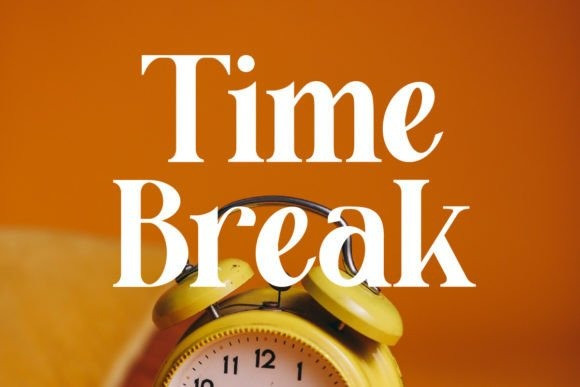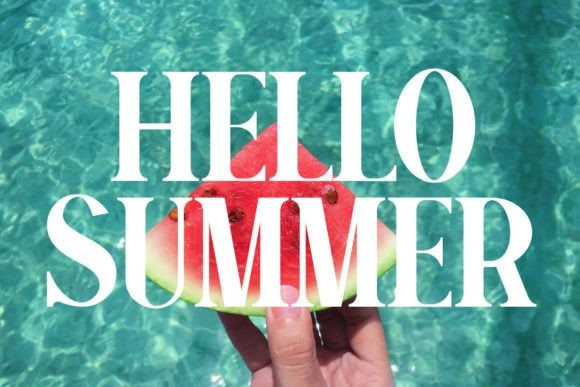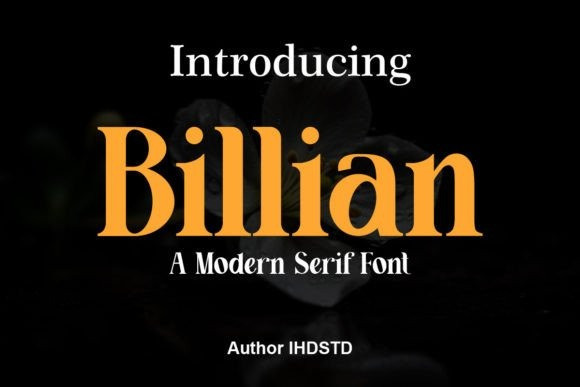
Billian Font
Billian Font is a sleek and modern serif font featuring clean lines and elegant curves. With its timeless look, it’s perfect for any branding or design project, adding a touch of sophistication and refinement. Its balanced proportions and versatile style make it an excellent choice for a wide range of applications.